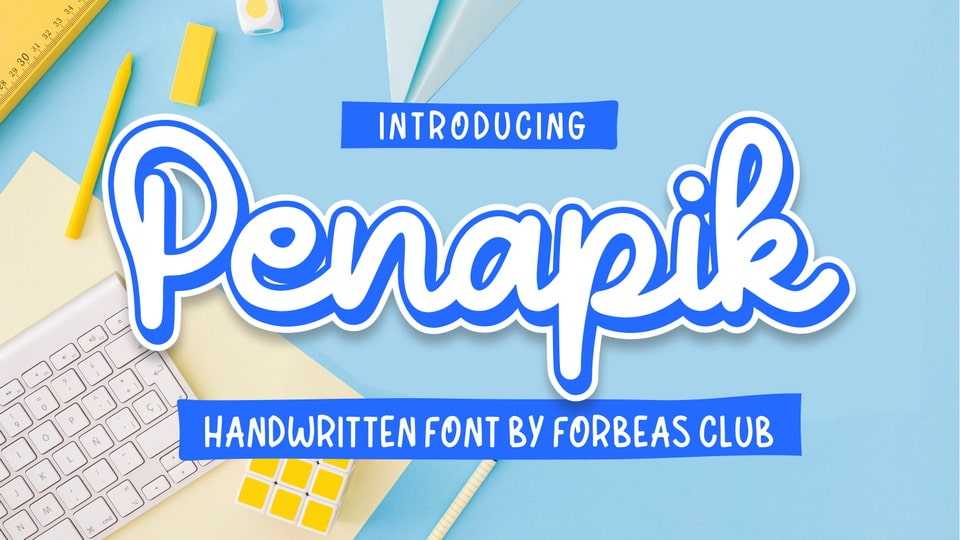
Download Penapik font, a flowing handwritten typeface, described by an elegant touch, perfect for your favorite projects. With its incredibly lovely and playful style the font is perfect to create spectacular designs.